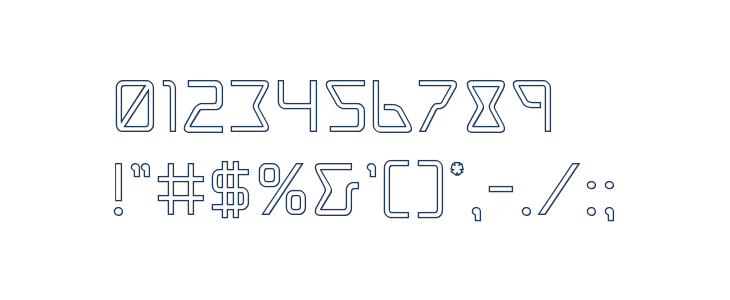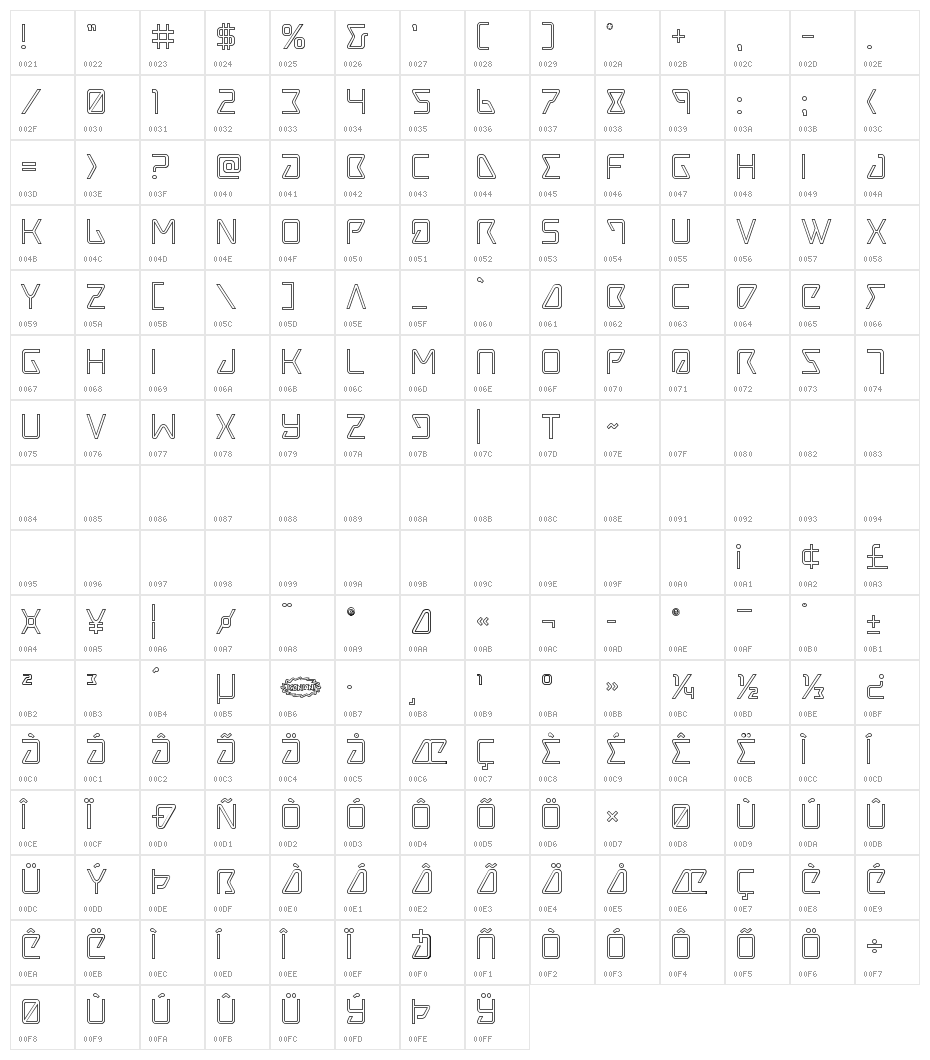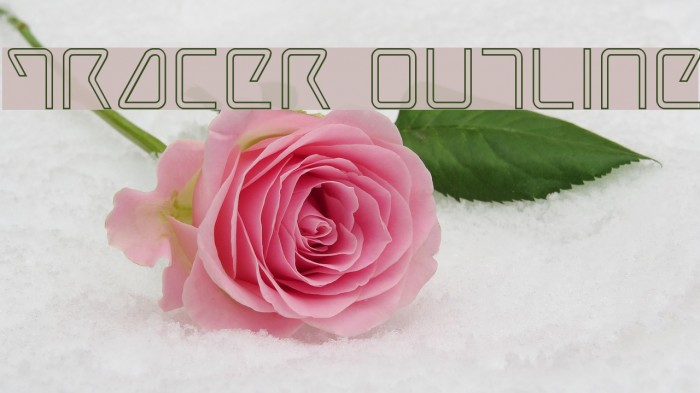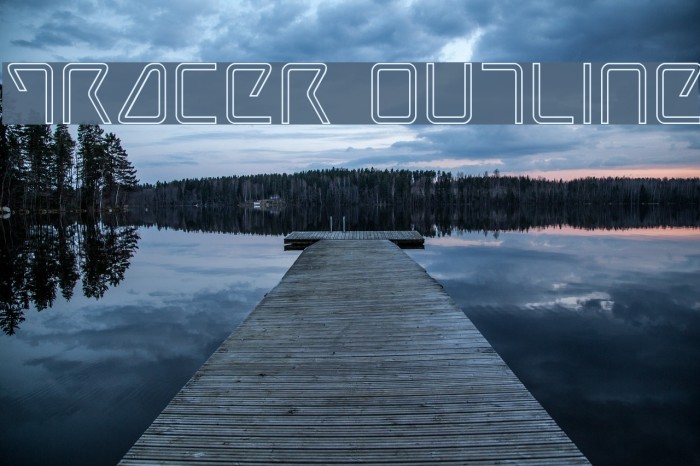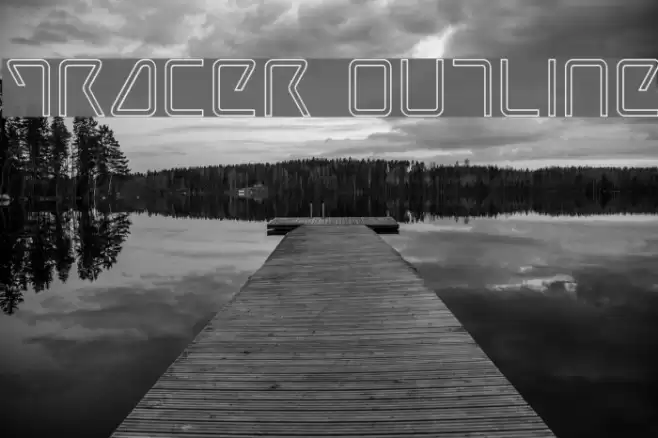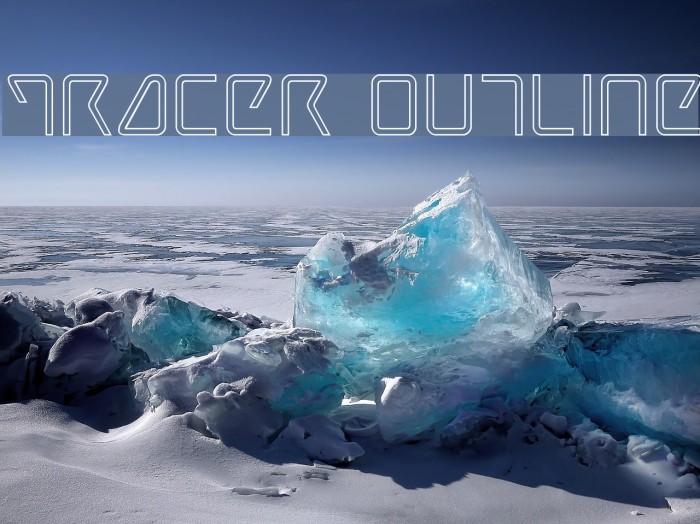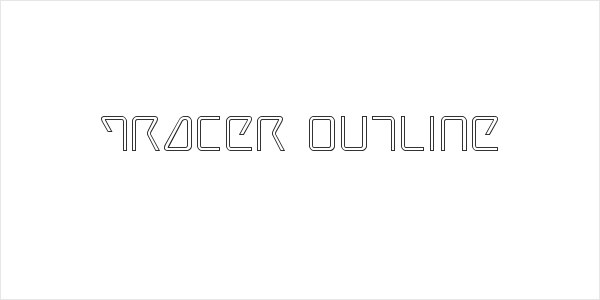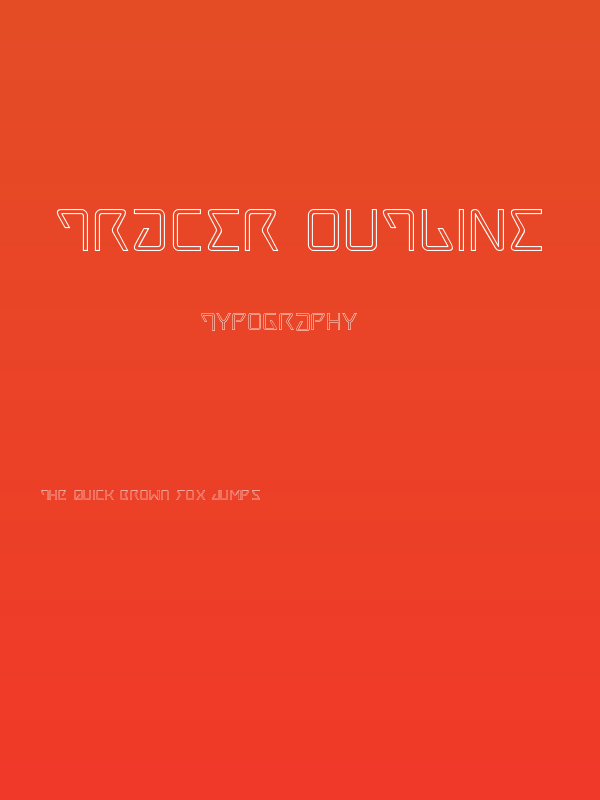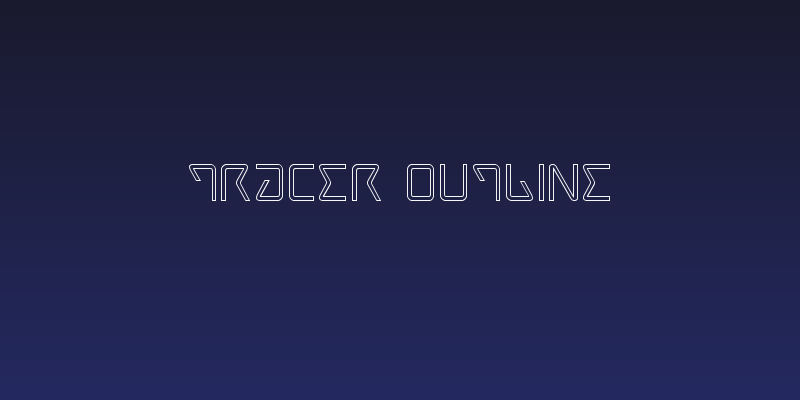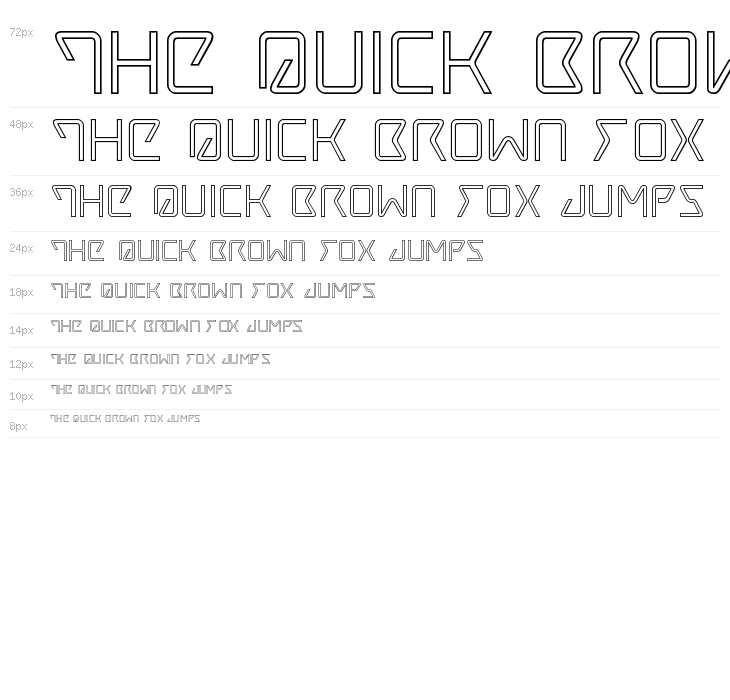
Tracer Outline Font
Tracer Outline Description
This font features a unique outline style with a futuristic and geometric design. Each character is crafted with precision, showcasing sharp angles and clean lines that create a sense of modernity and innovation. The uppercase and lowercase letters maintain a consistent aesthetic, with a uniform stroke width that enhances readability while retaining a distinct visual appeal. The numerals and special characters follow the same design principles, ensuring a cohesive look across all elements. This font's outline nature gives it a lightweight appearance, making it suitable for projects that require a contemporary and tech-savvy vibe.
| Proposed Projects | Ideal for tech branding, sci-fi posters, digital interfaces, and modern art projects. |